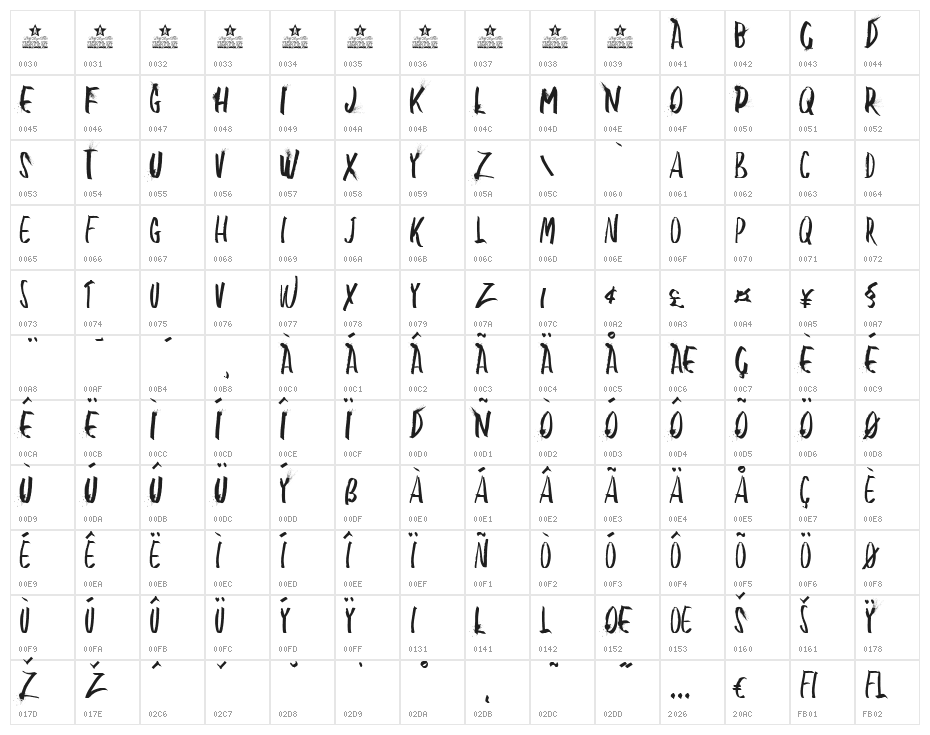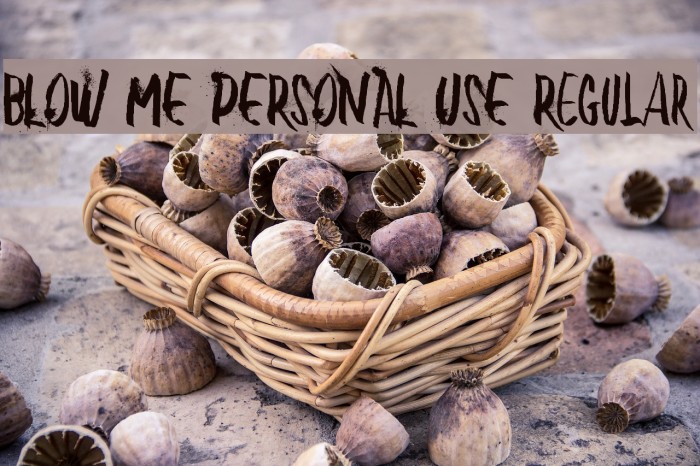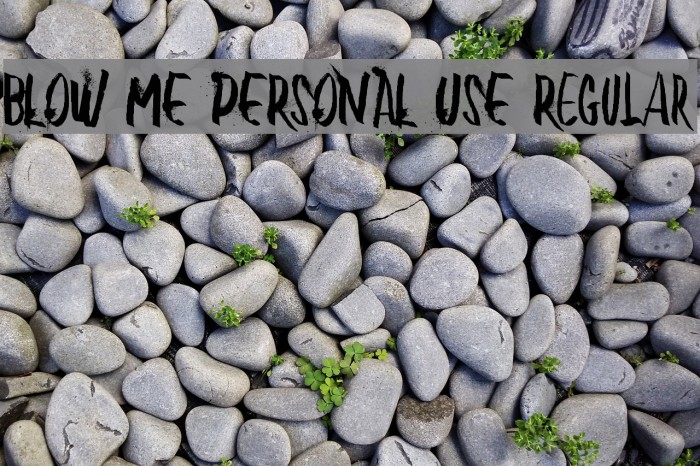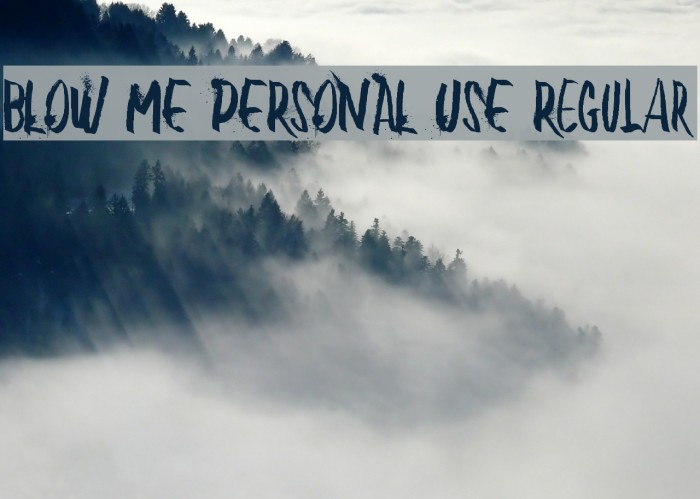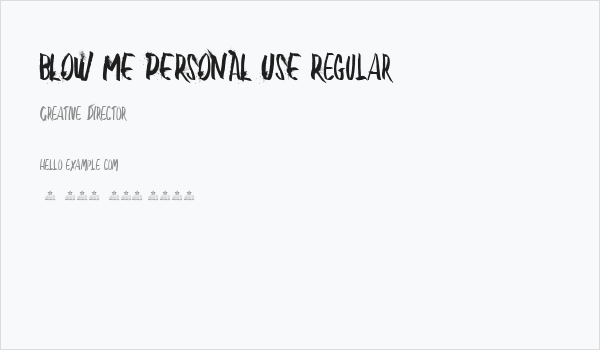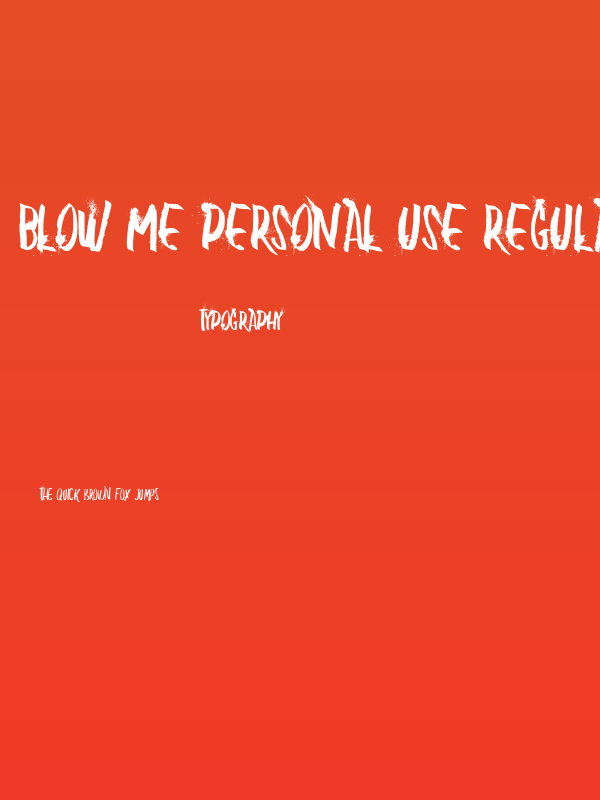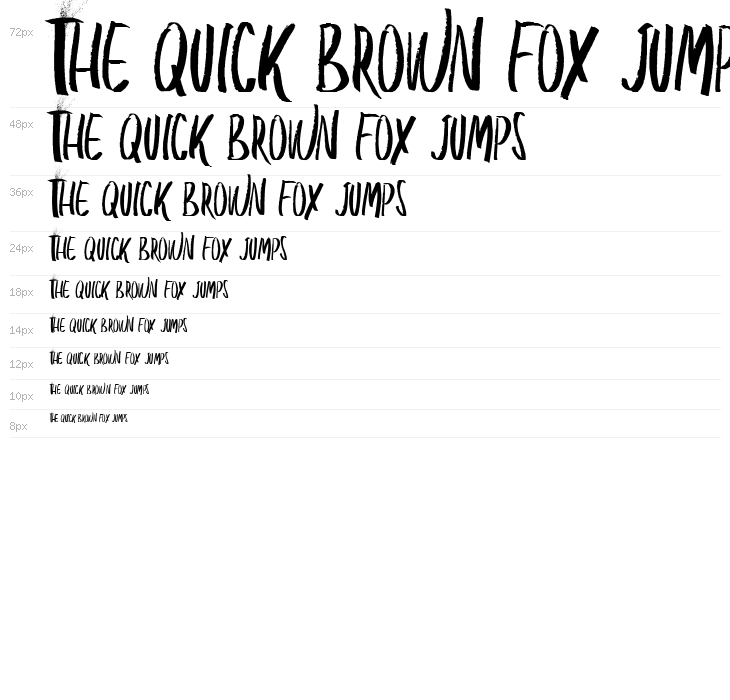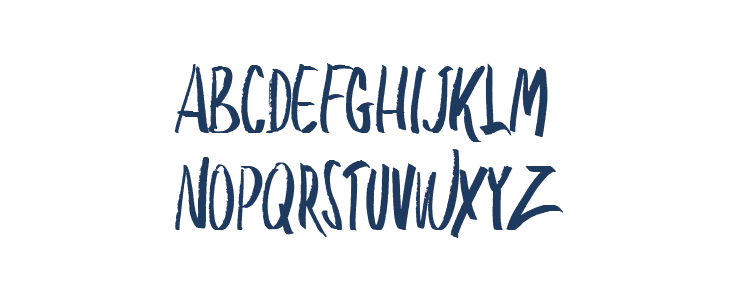
BLOW ME PERSONAL USE Regular Font
BLOW ME PERSONAL USE Regular Description
This font features a bold and dynamic brush style, characterized by its expressive and energetic strokes. The letters have a hand-painted appearance, with varying thickness and a slightly rough texture that adds to its artistic flair. The uppercase letters are prominent and commanding, while the lowercase letters maintain a consistent style, offering a cohesive look. The font's unique personality makes it stand out, with a sense of movement and spontaneity that is perfect for creative projects. Its distinct style is suitable for making a strong visual impact.
| Overall Style | Modern, Artistic |
| Proposed Projects | Ideal for posters, album covers, branding, and creative advertising projects. |